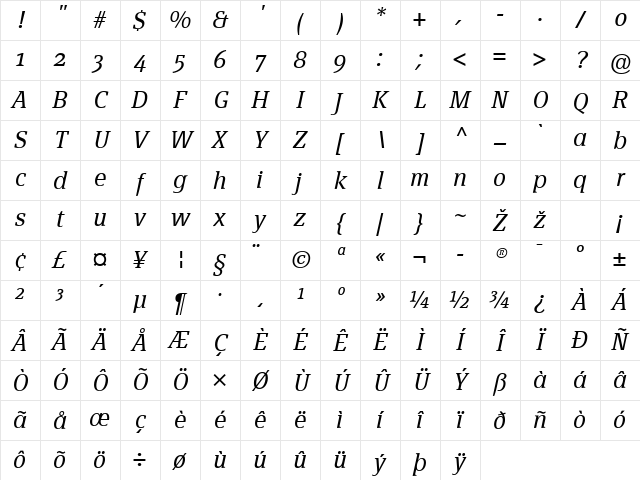
PageSerif-LightItalic carries the refined structure of traditional serif typography, with bracketed terminals and considered proportions that communicate credibility and craft. The slanted form adds forward momentum and visual energy. Its slender proportions lend an understated elegance to any composition.
A reliable choice for luxury brands, academic publishing, editorial headers, and credibility-focused identities.
Font Pairing: Pairs naturally with a modern sans-serif for UI elements and captions, creating a classic editorial contrast.
Pro Tip: Use PageSerif-LightItalic with generous line-spacing for the most refined reading experience - its light weight benefits from room between lines.